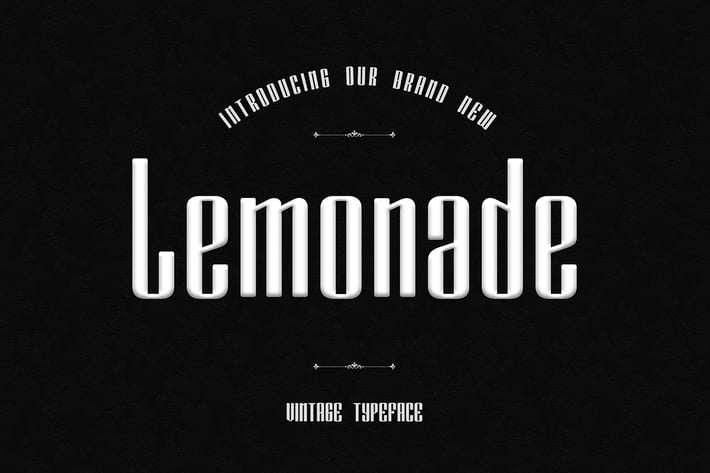
Lemonade Unique Display Font
Lemonade Vintage Font is a retro-inspired display typeface. It's a cool fresh take on a retro classic, and it's ready to make an enduring impression on your Designs. This feature-rich display font is perfect for your next Print designs, heavy heading or Branding works.